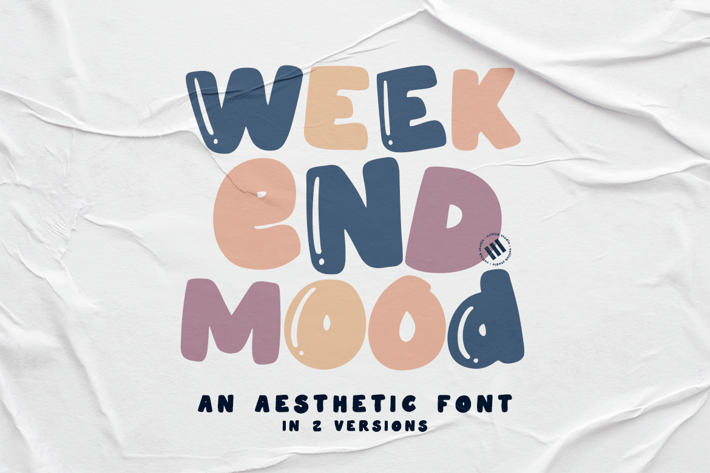
Weekend Mood - An Aesthetic Font
Weekend Mood is an aesthetic font with 2 versions that is suitable for design projects; playful theme, logo, branding, poster, quotes, display, beautiful stationary art, eye-catching social media posts, and cute greeting cards, and any other designs.
Two versions
Full upper + lowercase characters
Numbers + punctuation